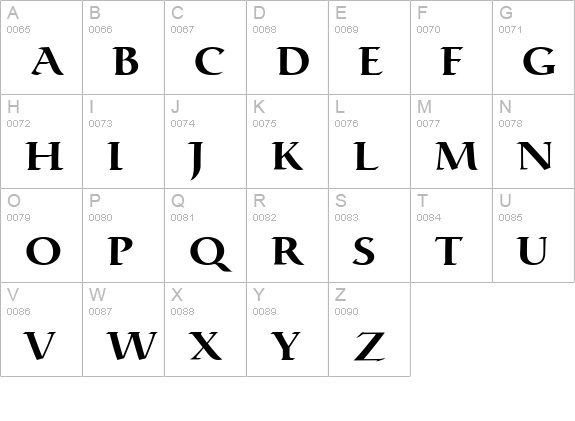
Catull (R) Medium is a balanced, medium-weight variant in the Catull typeface family \xE2\x80\x94 well suited to sub-headlines, navigation, and balanced editorial work.
Catull (R) Medium font is a modern and stylish typeface that exudes elegance and sophistication. Its sleek lines and subtle curves make it perfect for various design projects, from branding to editorial designs. The medium weight of the font strikes the perfect balance between being bold and easily readable. What sets Catull (R) Medium font apart is that it is available for free download at FontsMarket.com. This means that you can access this high-quality font without any cost, making it a valuable addition to any designer's toolkit. Whether you're working on a professional project or simply want to enhance your personal designs, Catull (R) Medium font is a versatile and attractive option. Download it today and elevate your designs with this exceptional typeface.